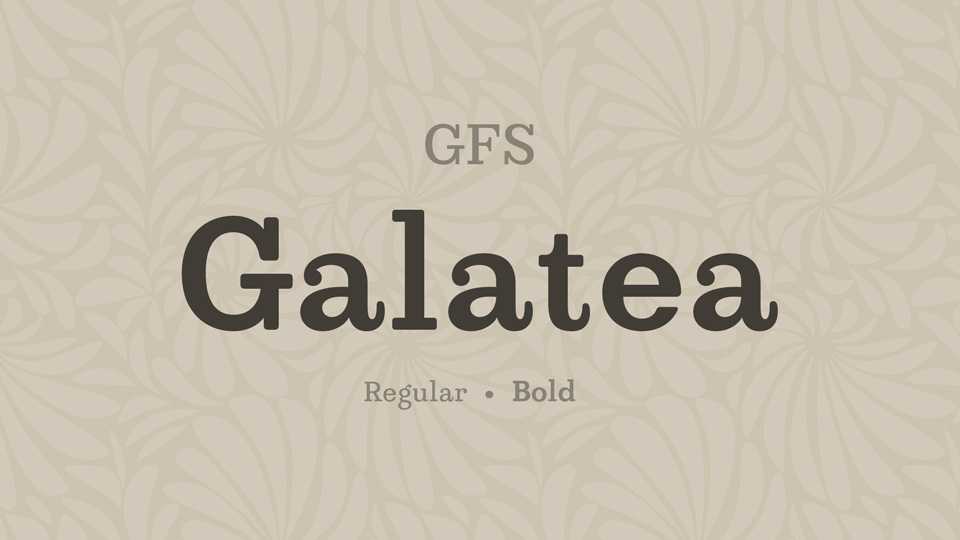
Download GFS Galatea typeface, a slab serif font family in two weights that revives in digital form an older hot metal typeface from the 1920’s, which can be found in older Greek type specimens named simply as FAT type.